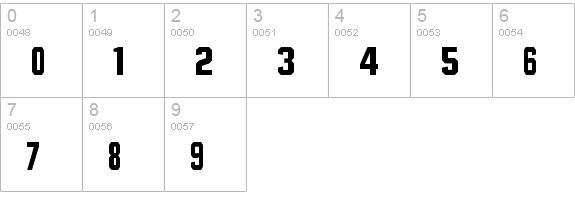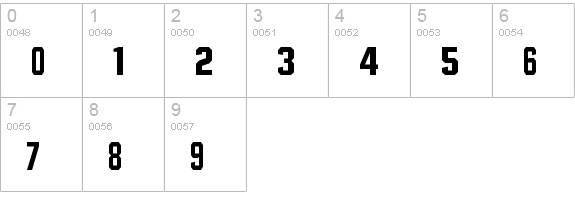
Nike Ithaca Font Details
Nike Ithaca font is a stunning display typeface that exudes elegance and sophistication. With its sleek and modern design, this font is perfect for creating eye-catching headlines, logos, and branding materials. The clean and sharp lines of Nike Ithaca font make it highly legible, ensuring that your message is conveyed with clarity and impact. What sets Nike Ithaca font apart is that it is freely available to download at FontsMarket.com. This means that you can easily access this magnificent font without any cost, making it a true gem for designers, creative professionals, and anyone looking to add a touch of class to their projects. Nike Ithaca font offers a wide range of characters and symbols, allowing you to truly personalize your designs and create a unique visual identity. Its versatility makes it suitable for various design purposes, whether you are designing a magazine layout, a website, or even a poster. The beauty of Nike Ithaca font lies in its ability to effortlessly blend with other typefaces, creating harmonious and visually pleasing compositions. Its timeless appeal ensures that your designs will stand the test of time and remain relevant for years to come. Download Nike Ithaca font for free at FontsMarket.com and unlock the potential to create captivating designs that leave a lasting impression. With its stunning aesthetics, versatility, and the freedom to access it at no cost, Nike Ithaca font is a must-have for any designer's toolkit.